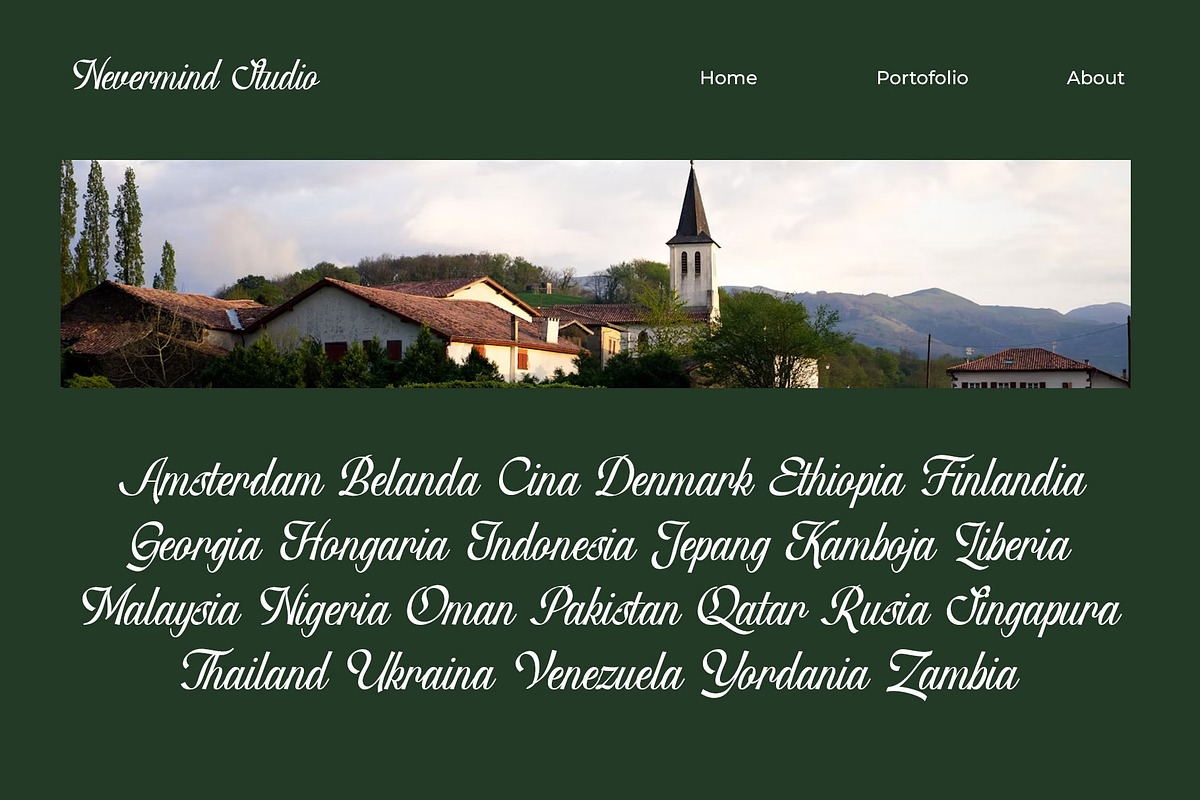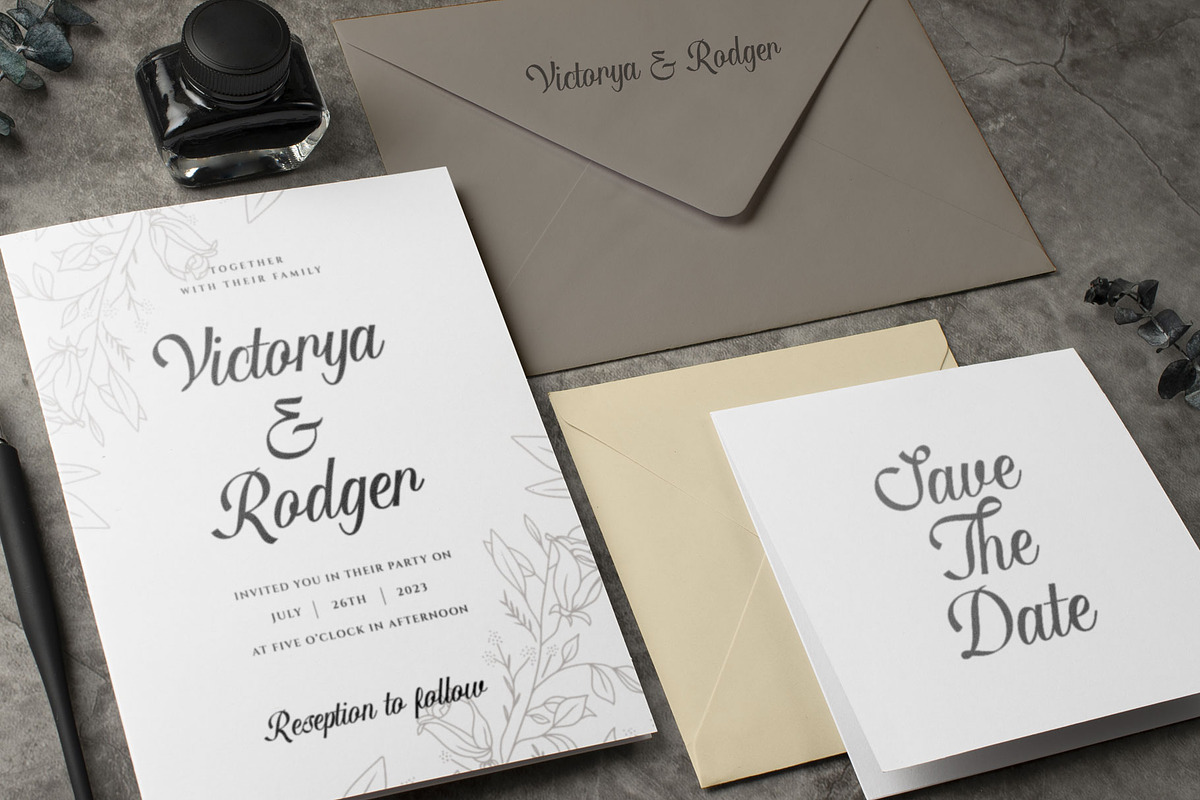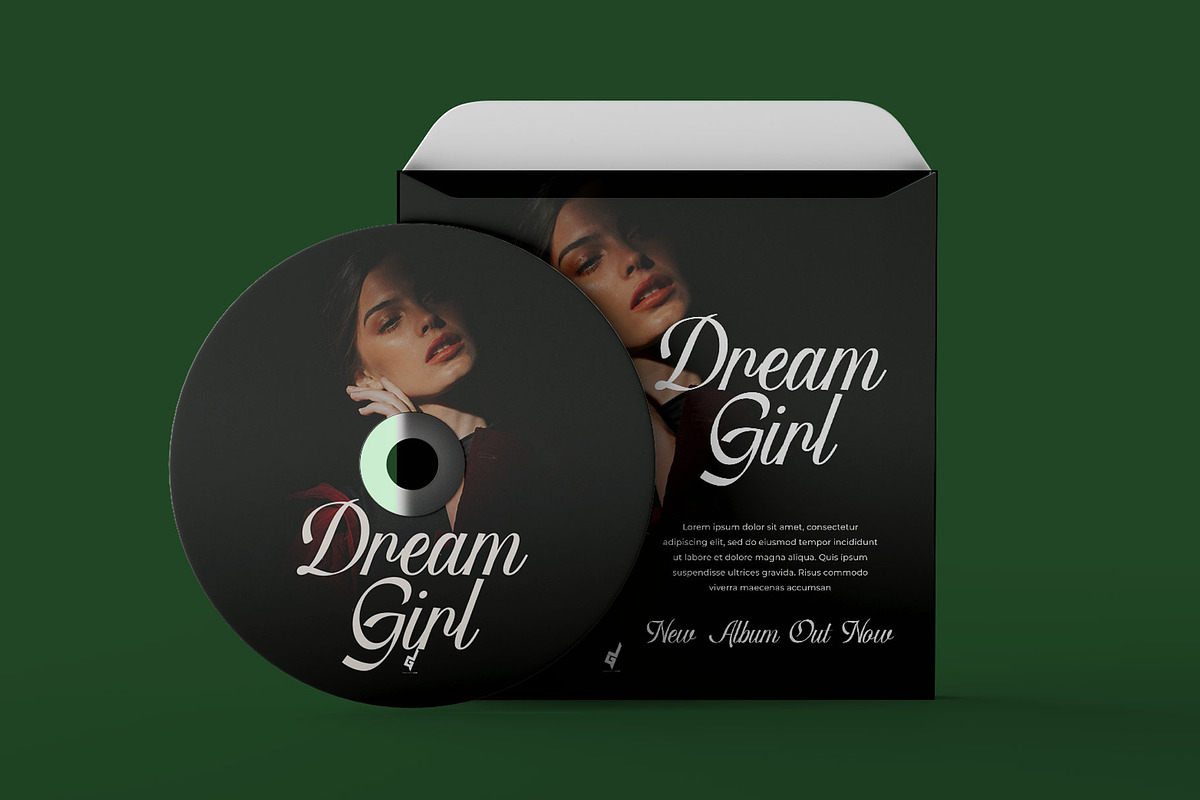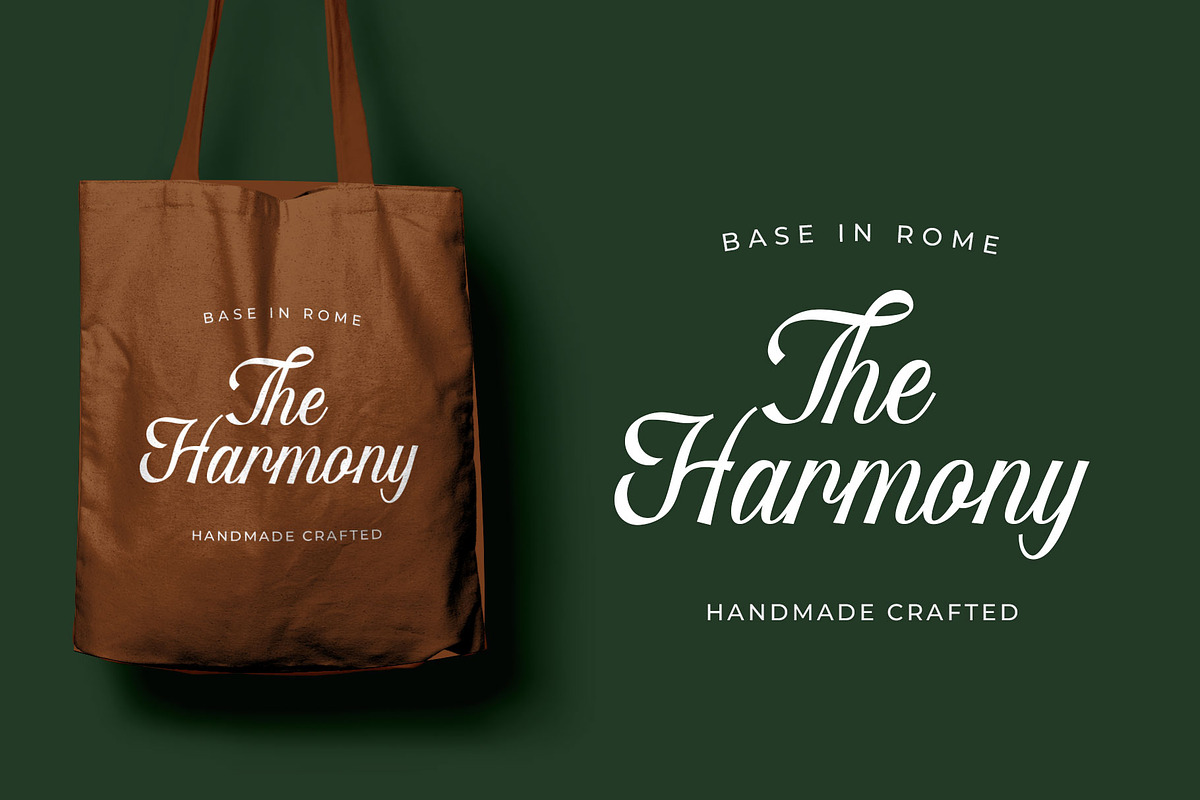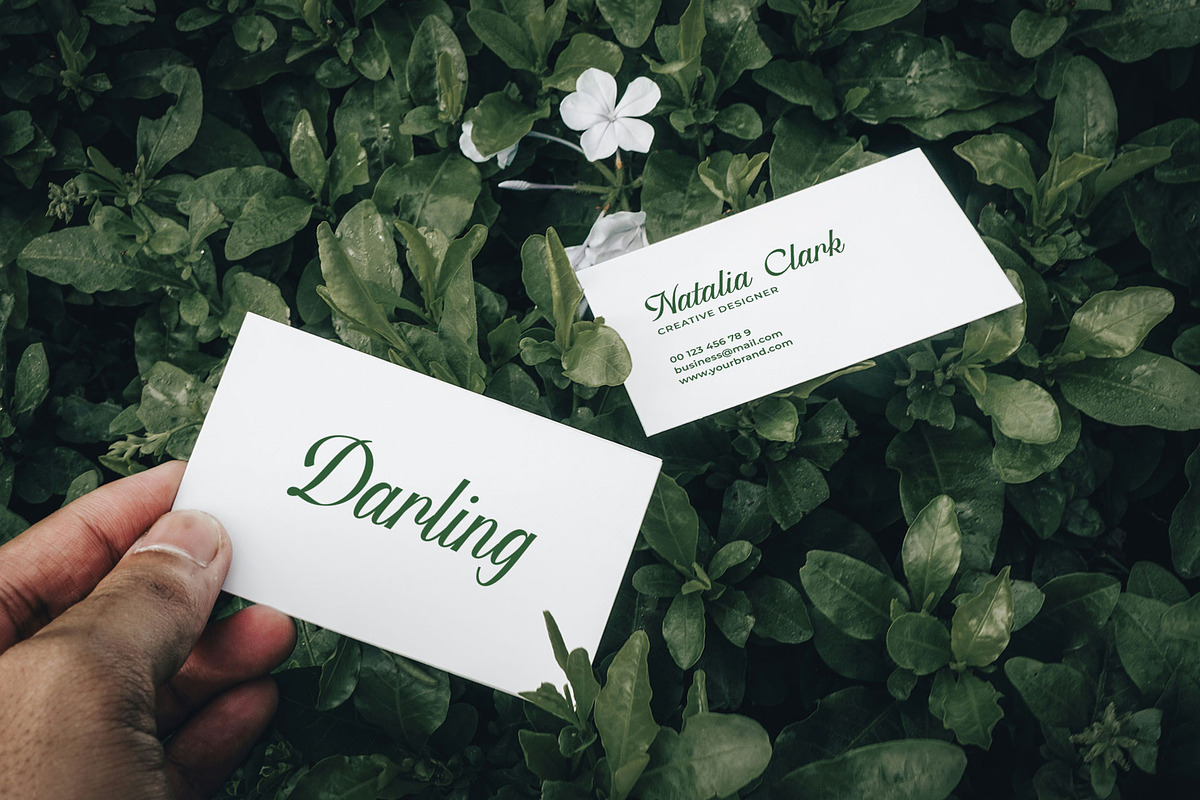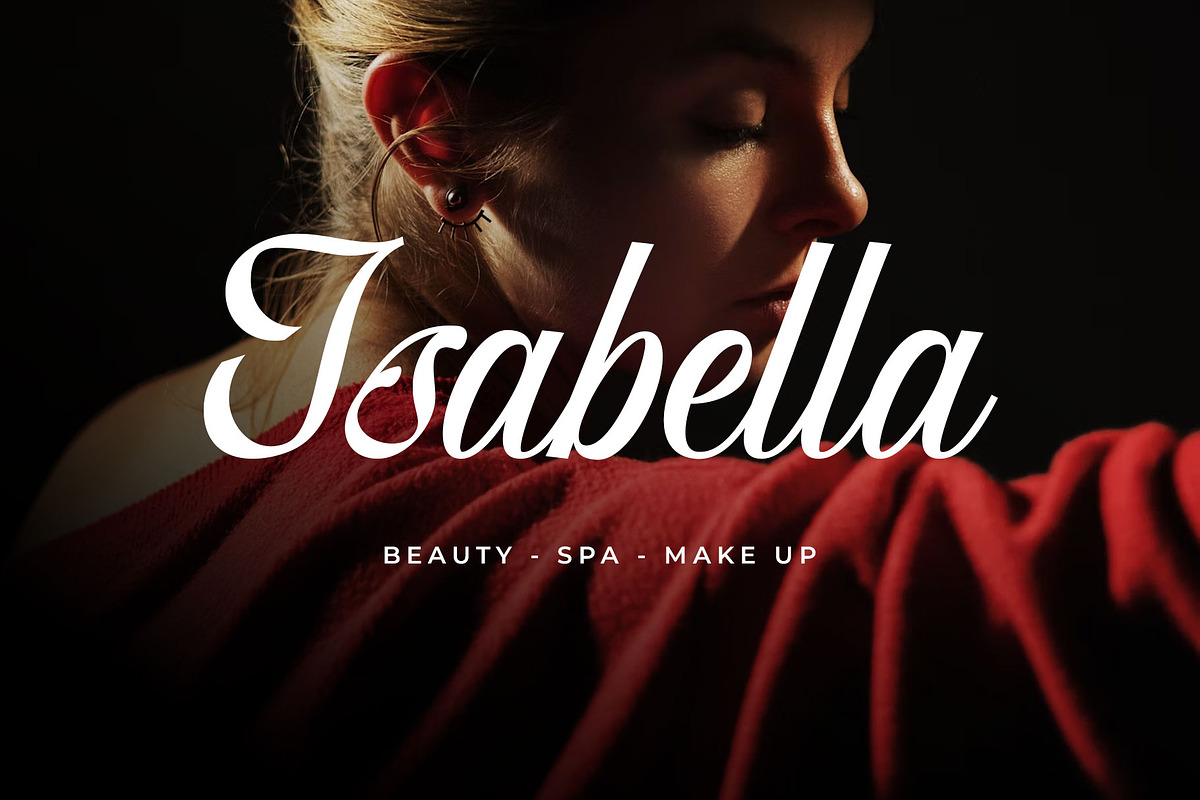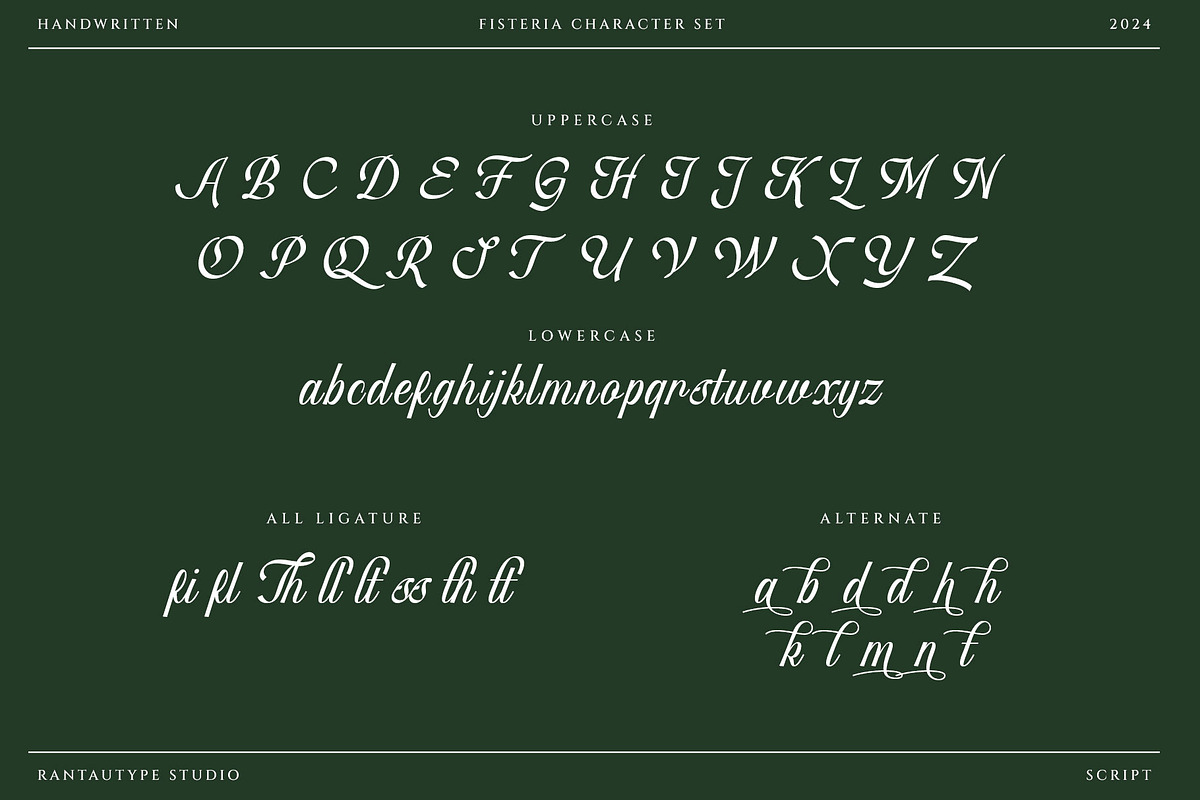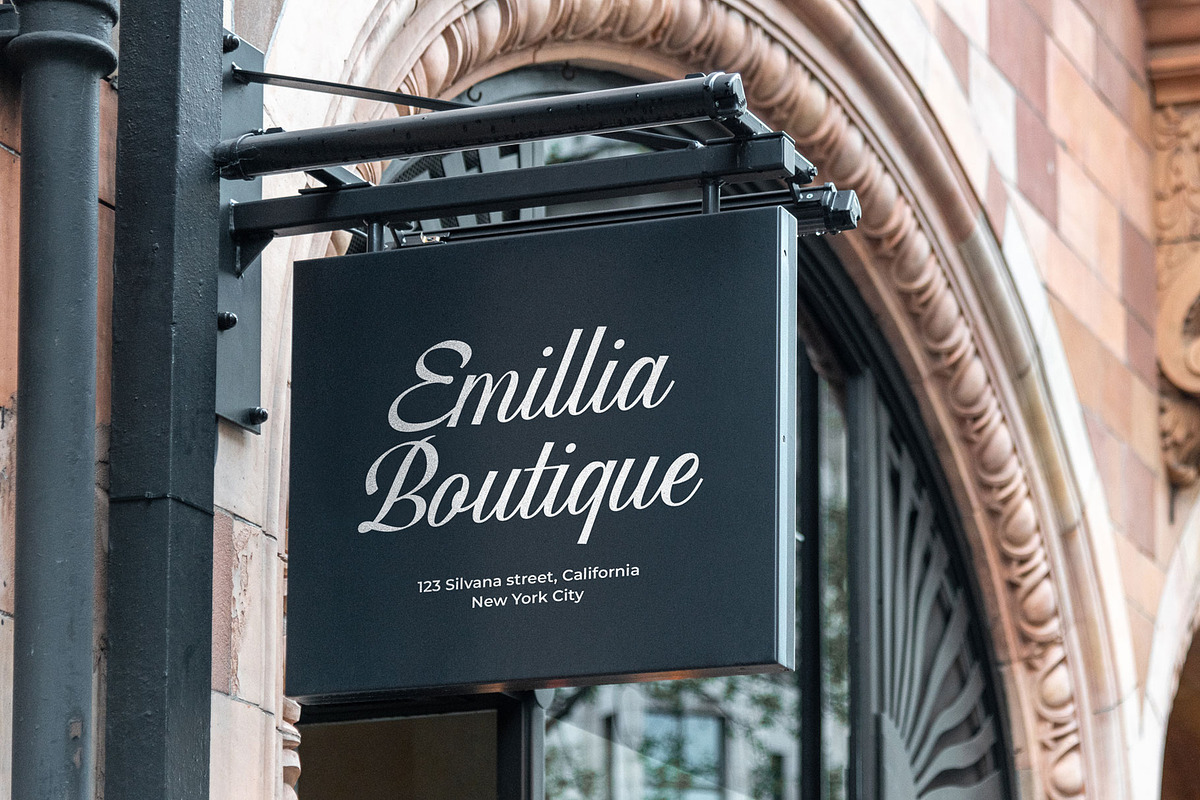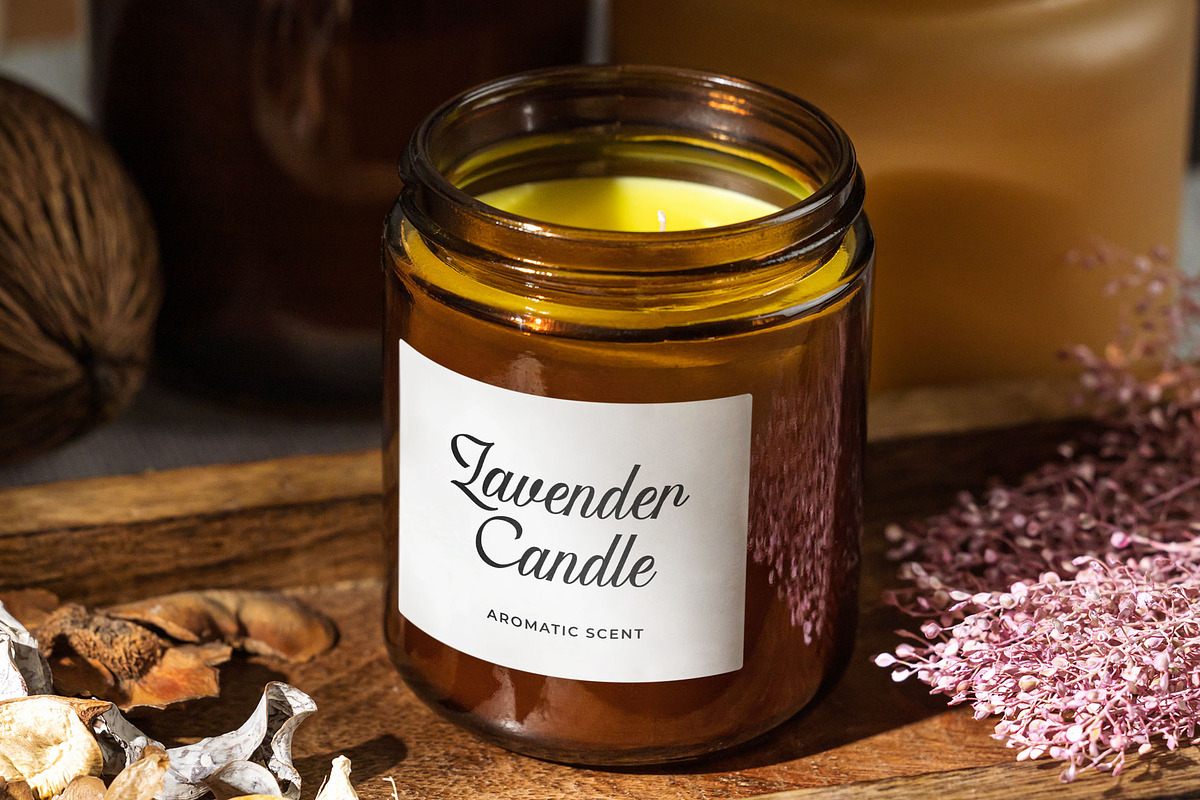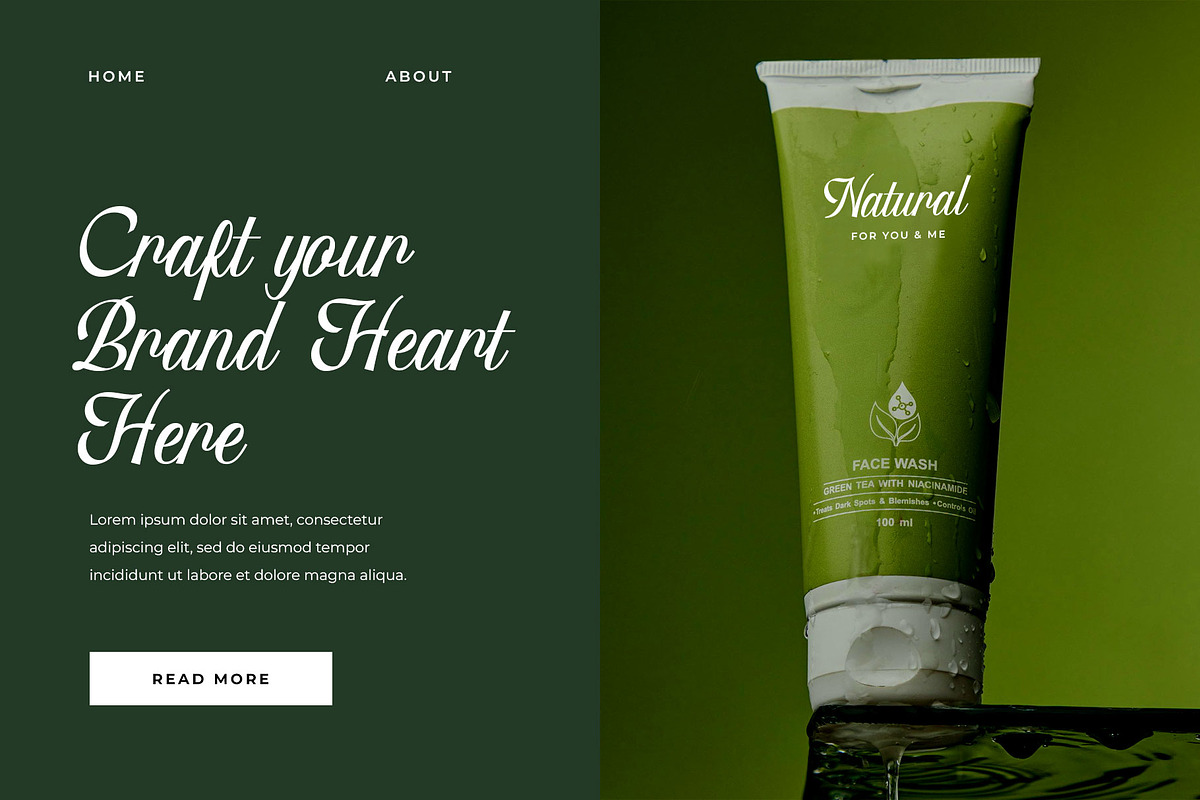
Fisterya Elegant Handwritten Font
Fisterya is handwritten script font with elegant character. Fisterya come with beautiful concept and feminity look to make your design project more different and stand out!
Fisterya is a beautiful choice for any creative endeavor, creating, modern, chic, lifestyle design such as logotype, title, cover, branding, invitations, wedding designs, display and magazine, social media posts, advertisements, printed quotes, product packaging, corporate brand, product designs, labels, photography, watermarks, special events and any other project with handwritten touch.
Standart Glyphs
Numberial and Functional
Alternate and ligature